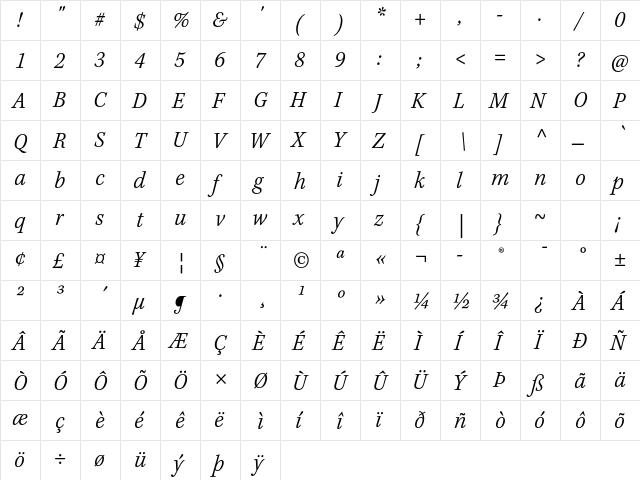
Kepler Std Light Semicondensed Italic Caption Font Preview
| Designer | Robert Slimbach |
Design Context for Kepler Std Typeface
Kepler Std takes a measured approach to typography — its balanced proportions and neutral character make it a reliable workhorse for both digital and print work. Its italic angle brings a sense of urgency and motion to the letterforms. Its slender proportions lend an understated elegance to any composition. Its narrow stance lets it pack a punch even in space-constrained designs.
Pro Tip: Try Kepler Std for annotation and caption copy alongside an upright companion — the contrast in angle creates a dynamic but ordered typographic system.